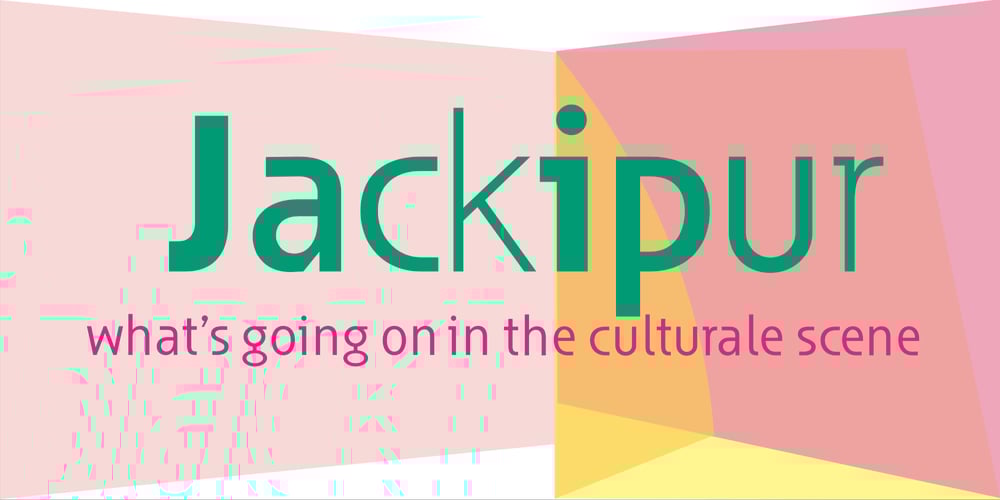
Jackipur
Jackipur font
Jackipur Font Family was designed by Guenter Jacki and published by HGB fonts. Jackipur contains 8 styles and family package options. The motivation for Jackipur was: to achieve more openness and thus more clarity. That’s why I created more clarity in the structure of the letters in order to avoid formal ambiguities that arise especially with small degrees. I found it important to open up the round letters so that they are straight and horizontal along the center and baselines so that the eye can connect the letters directly and quickly. A simple font, but neither plain nor without elegance.